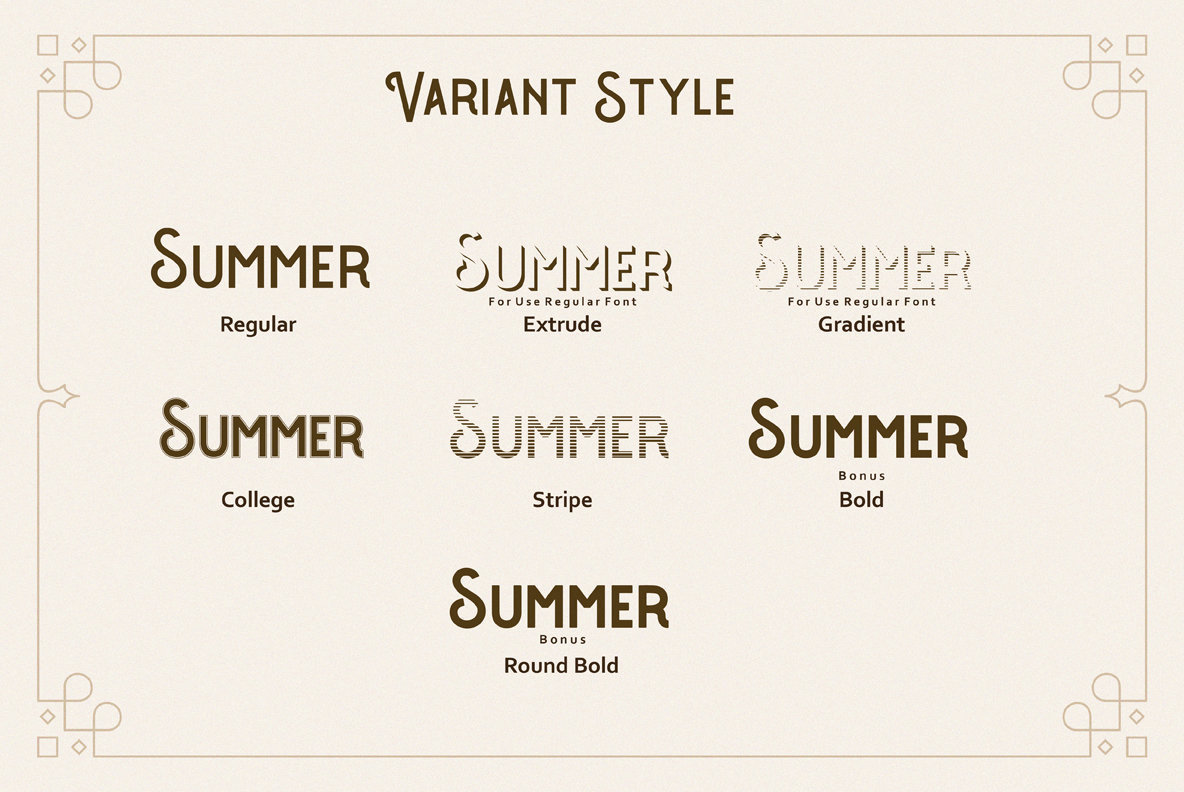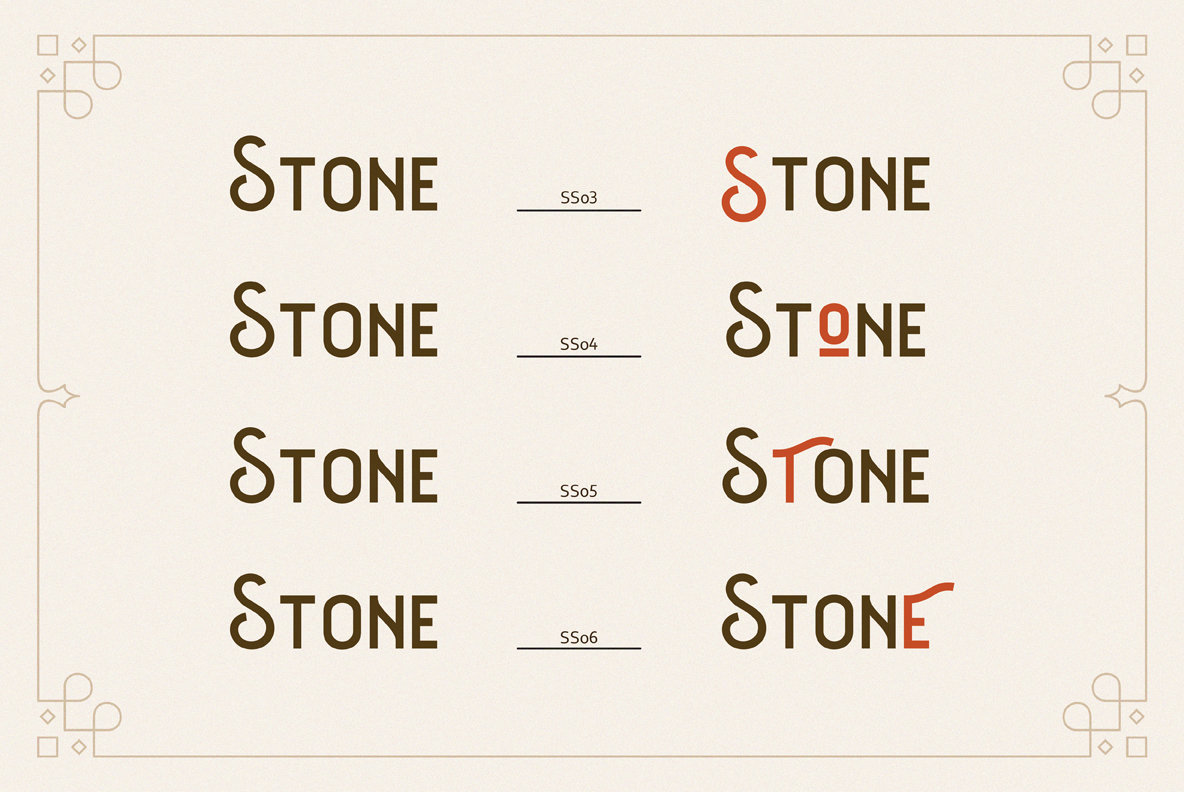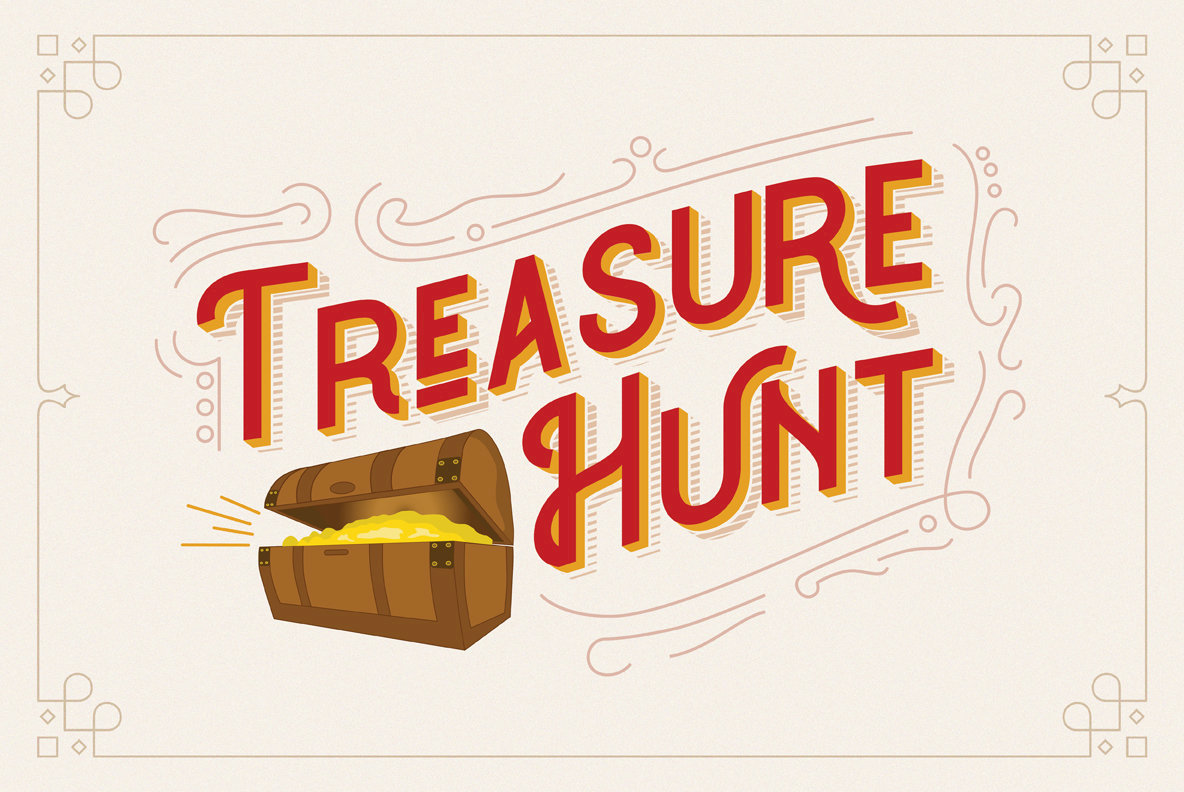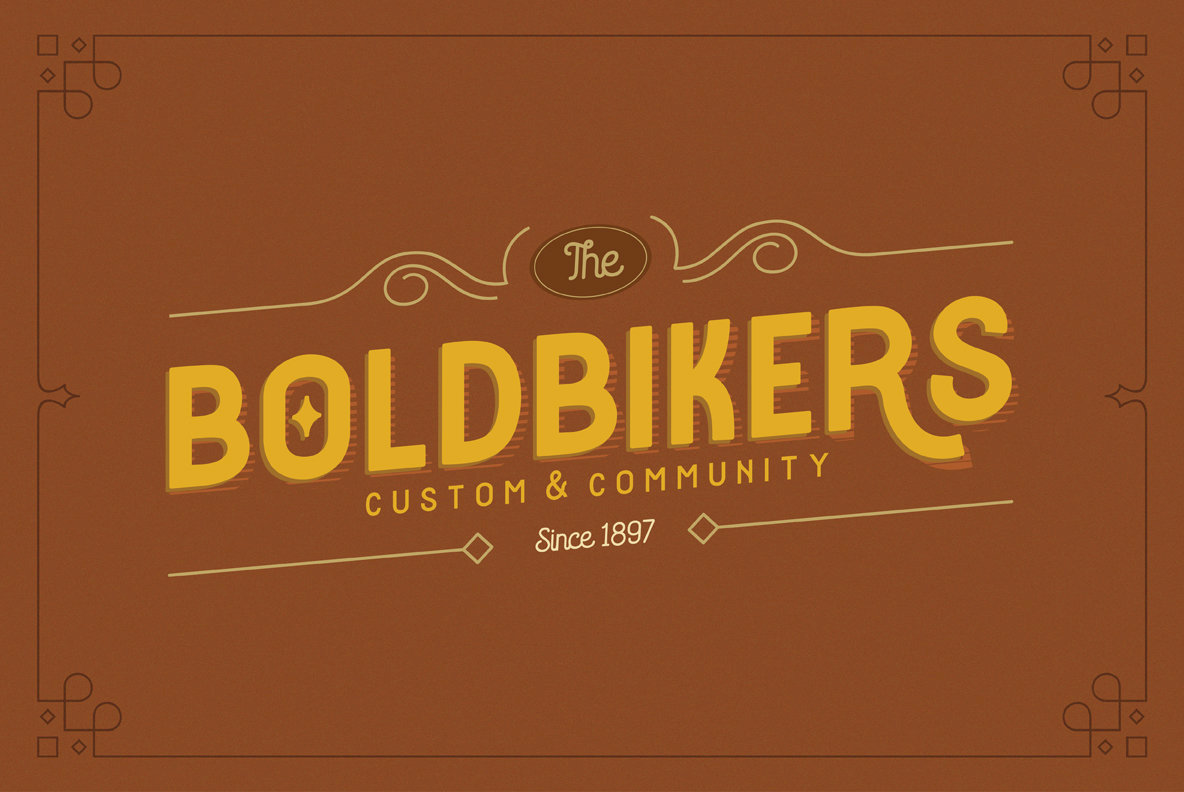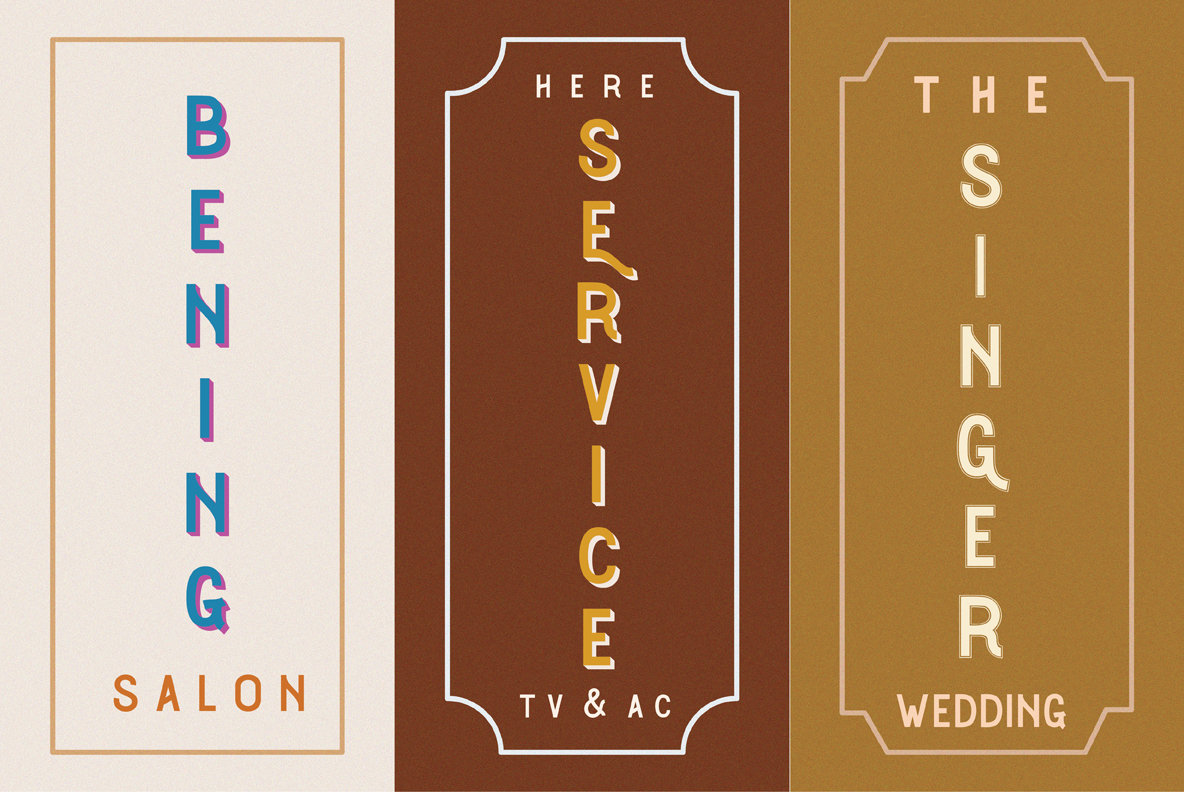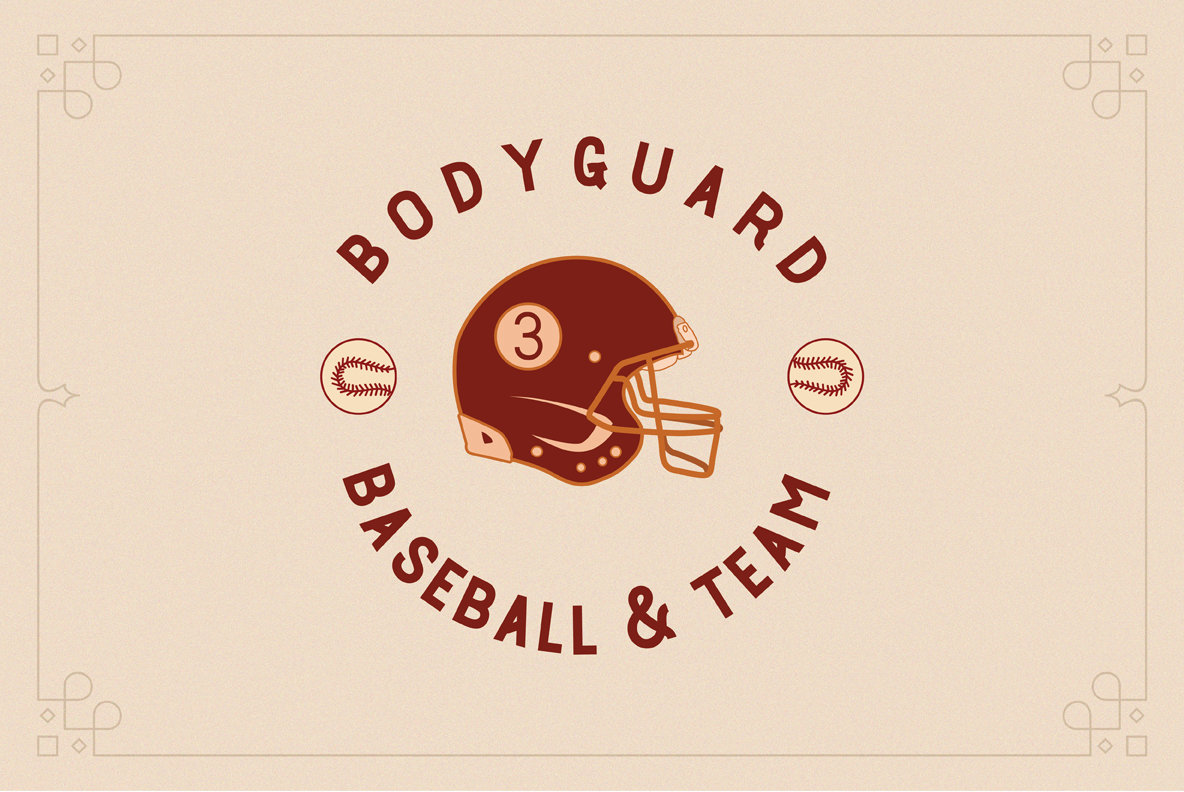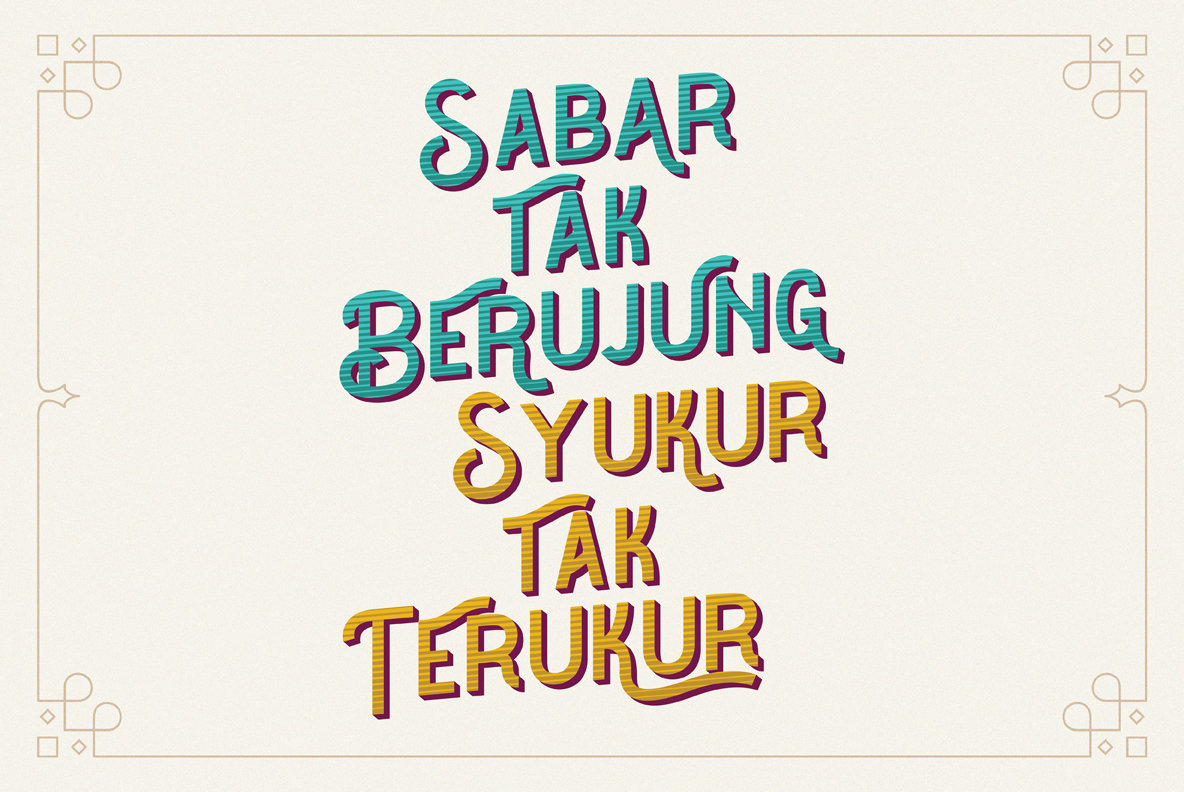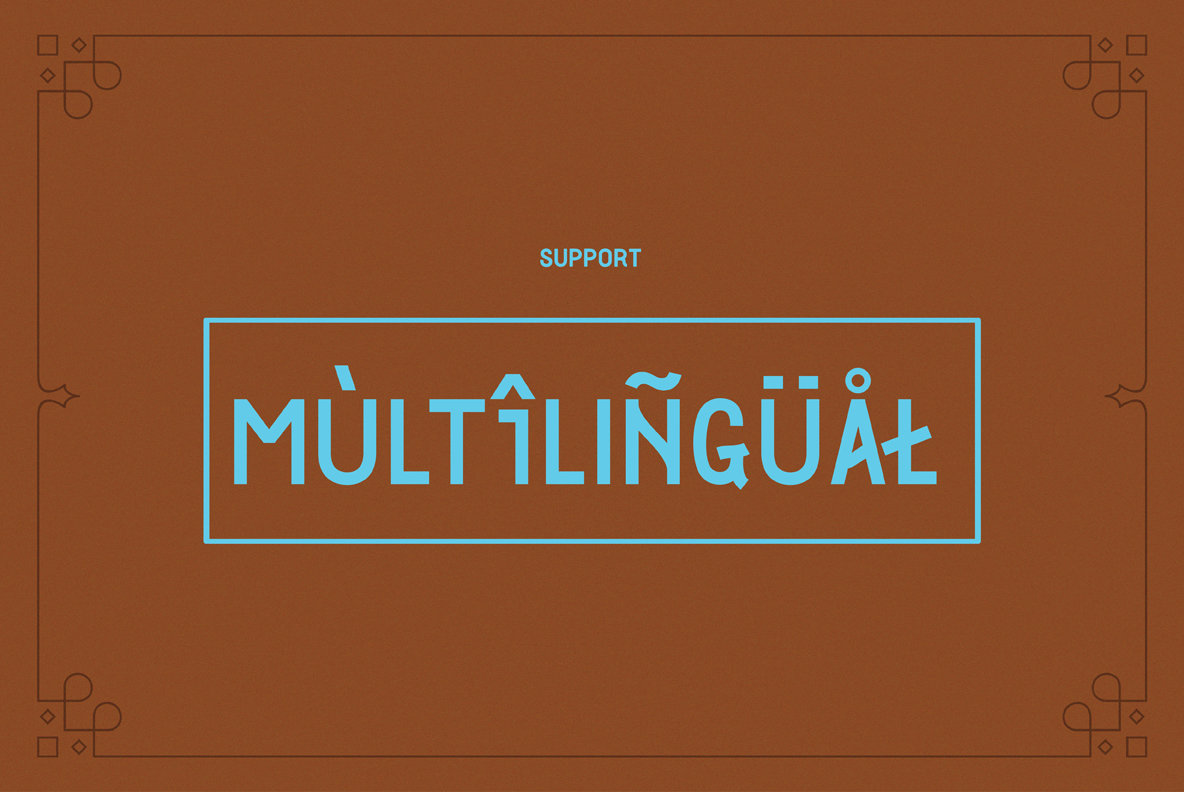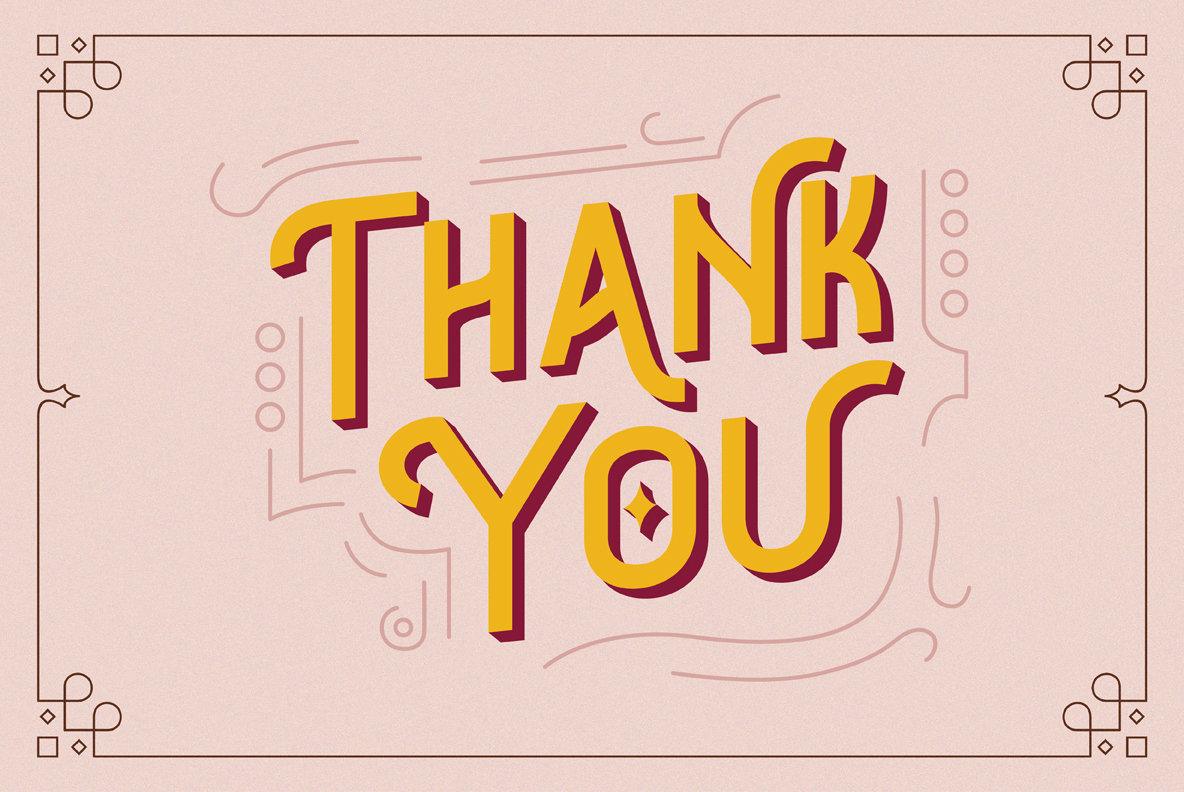
The Barra: A Versatile Sign Painter Font
The Barra embodies the classic spirit of sign painting with a modern twist, making it an exceptional choice for diverse design projects. The font's charm lies in its ability to enhance various products, from vintage logos and labels to posters, clothing designs, and packaging. With multilingual characters and stylistic sets, The Barra offers a complete toolkit for any creative venture.
• Uppercase letters
• Lowercase letters
• Multilingual support
• Comprehensive punctuation and symbols
• Stylistic sets